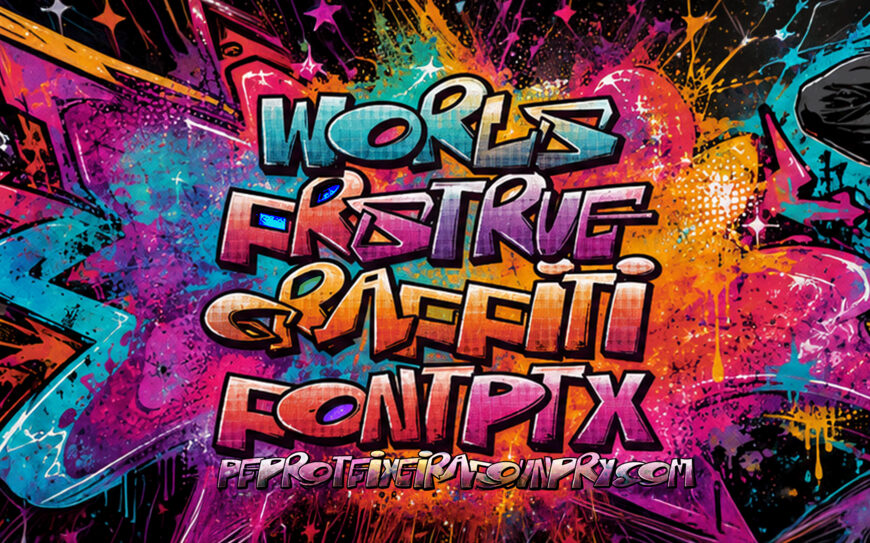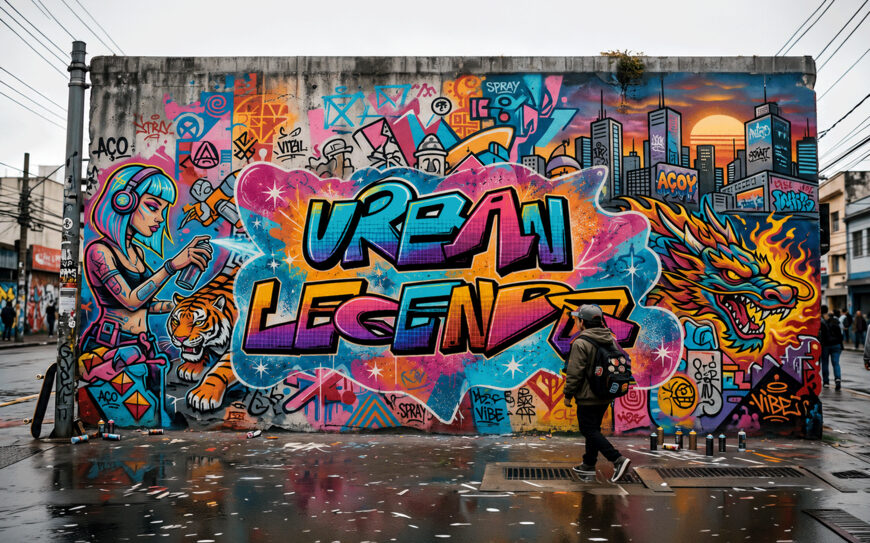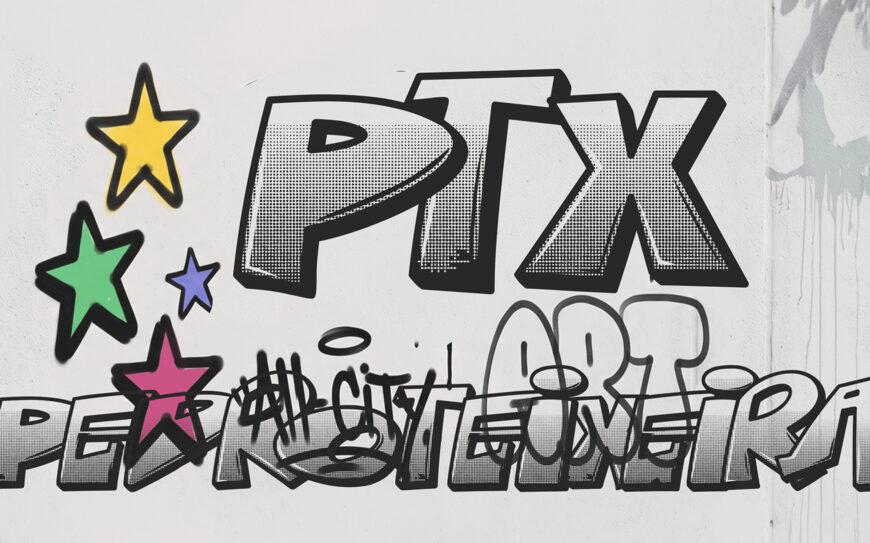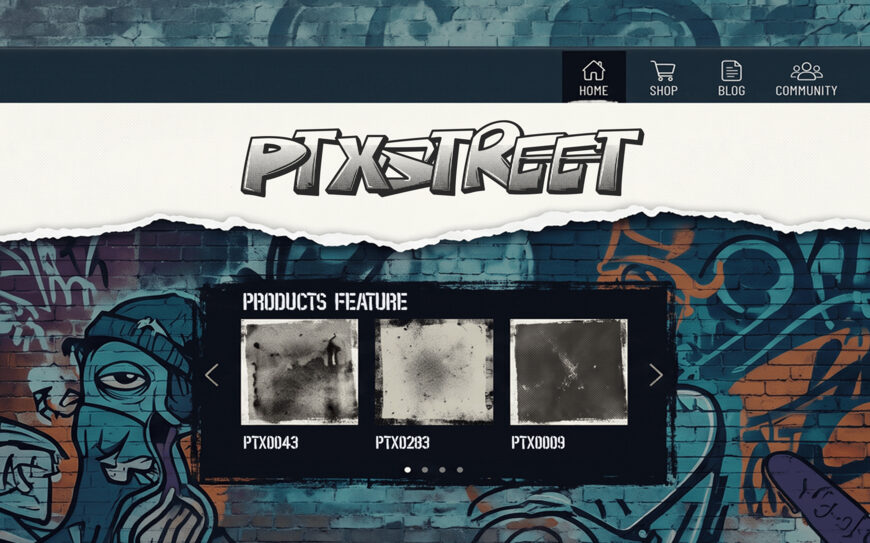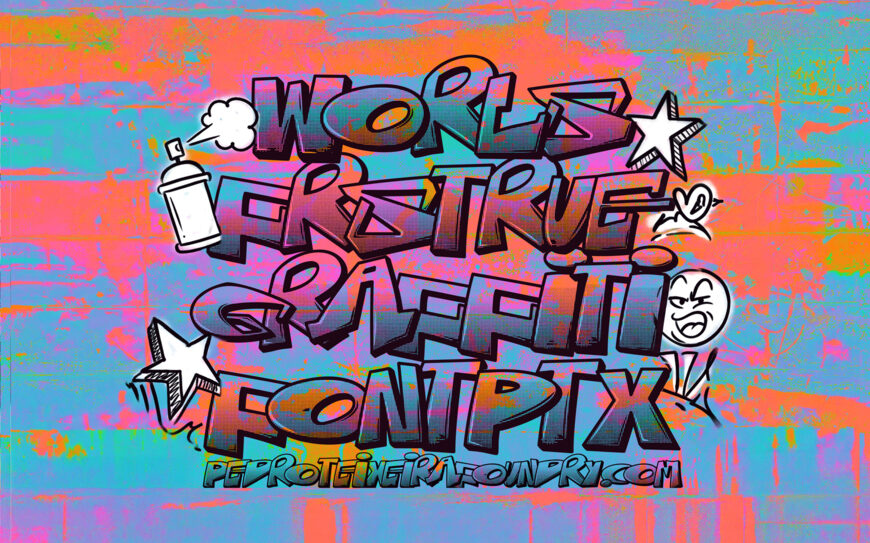
WorlFrsTrueGraffiFont is a pioneering overllaping graffiti display typeface designed to bring the spontaneous construction of authentic street graffiti directly into everyday desktop applications.
Without requiring manual letter positioning, image-editing software or additional graphic customization, the font automatically creates irregular overlaps between characters, reproducing the unpredictable rhythm, compression and visual interaction found in genuine graffiti lettering.